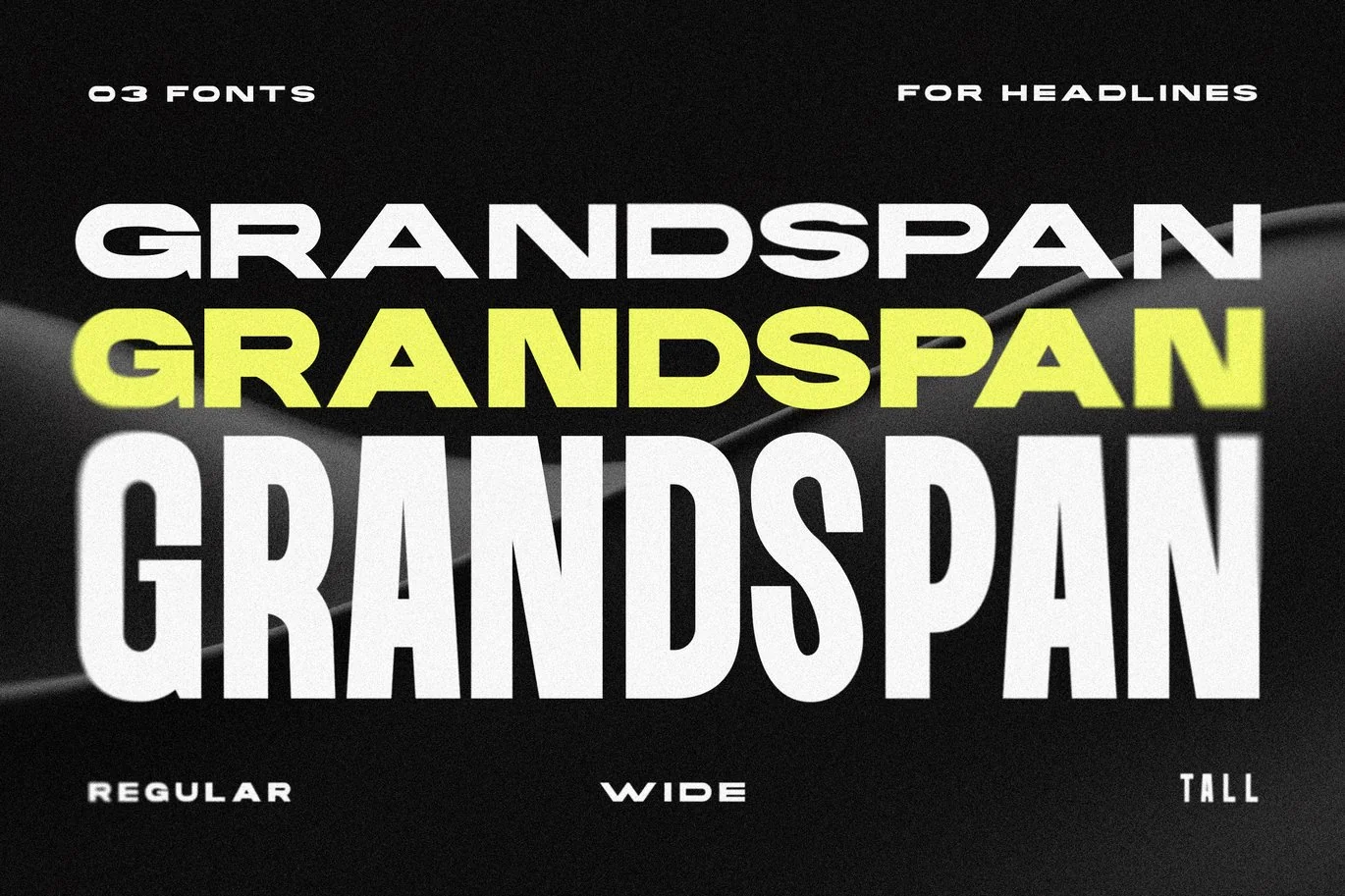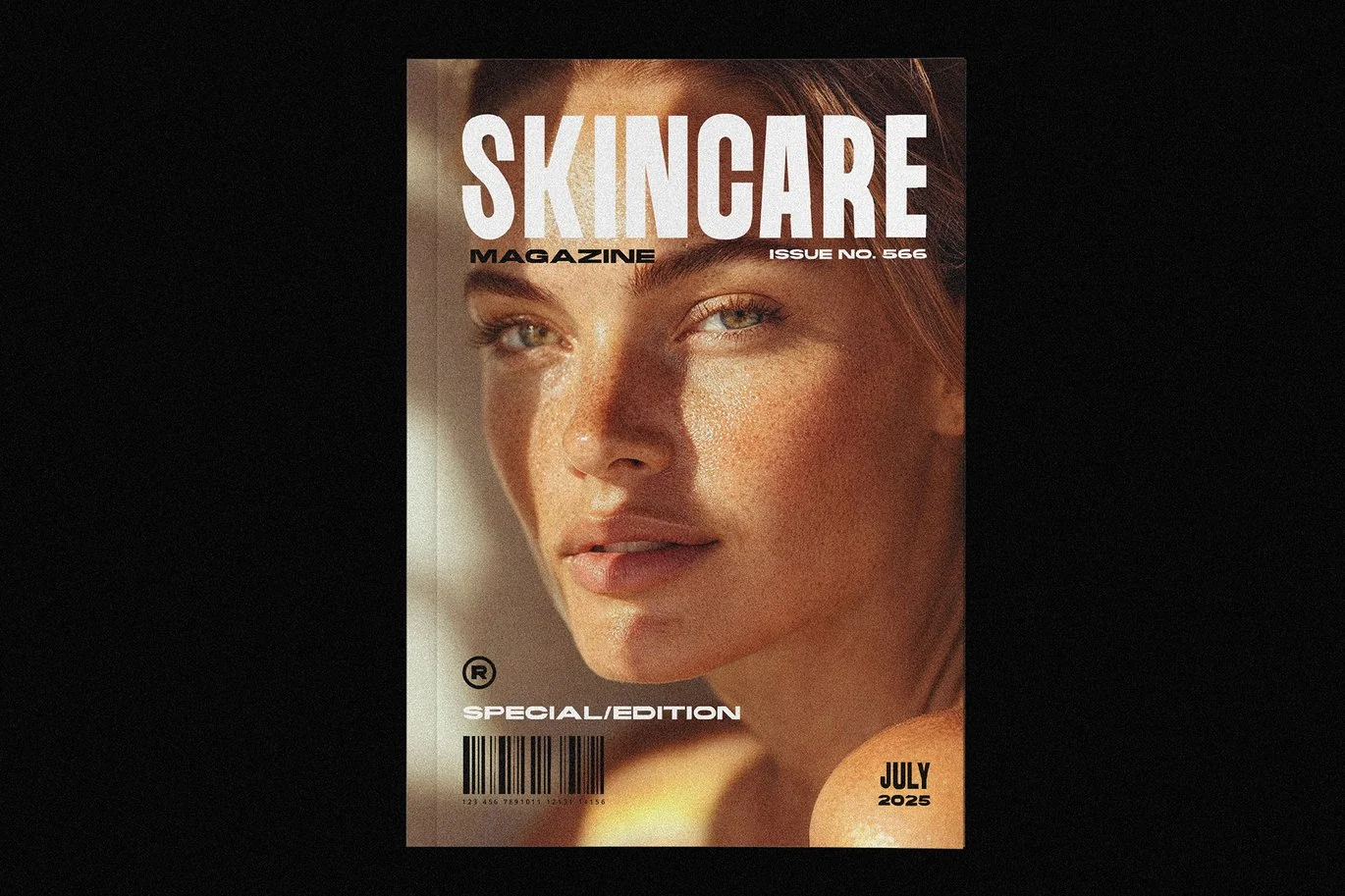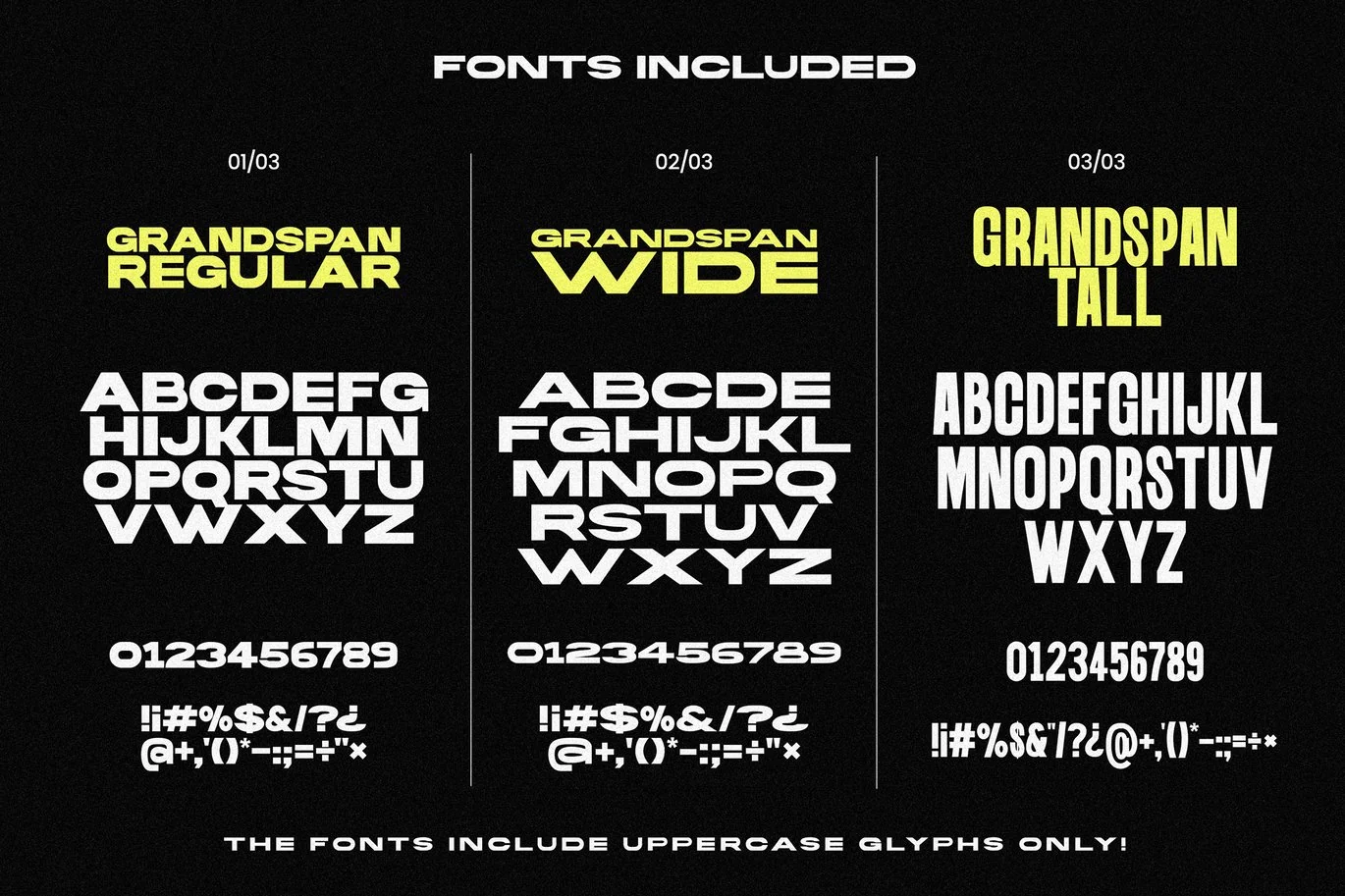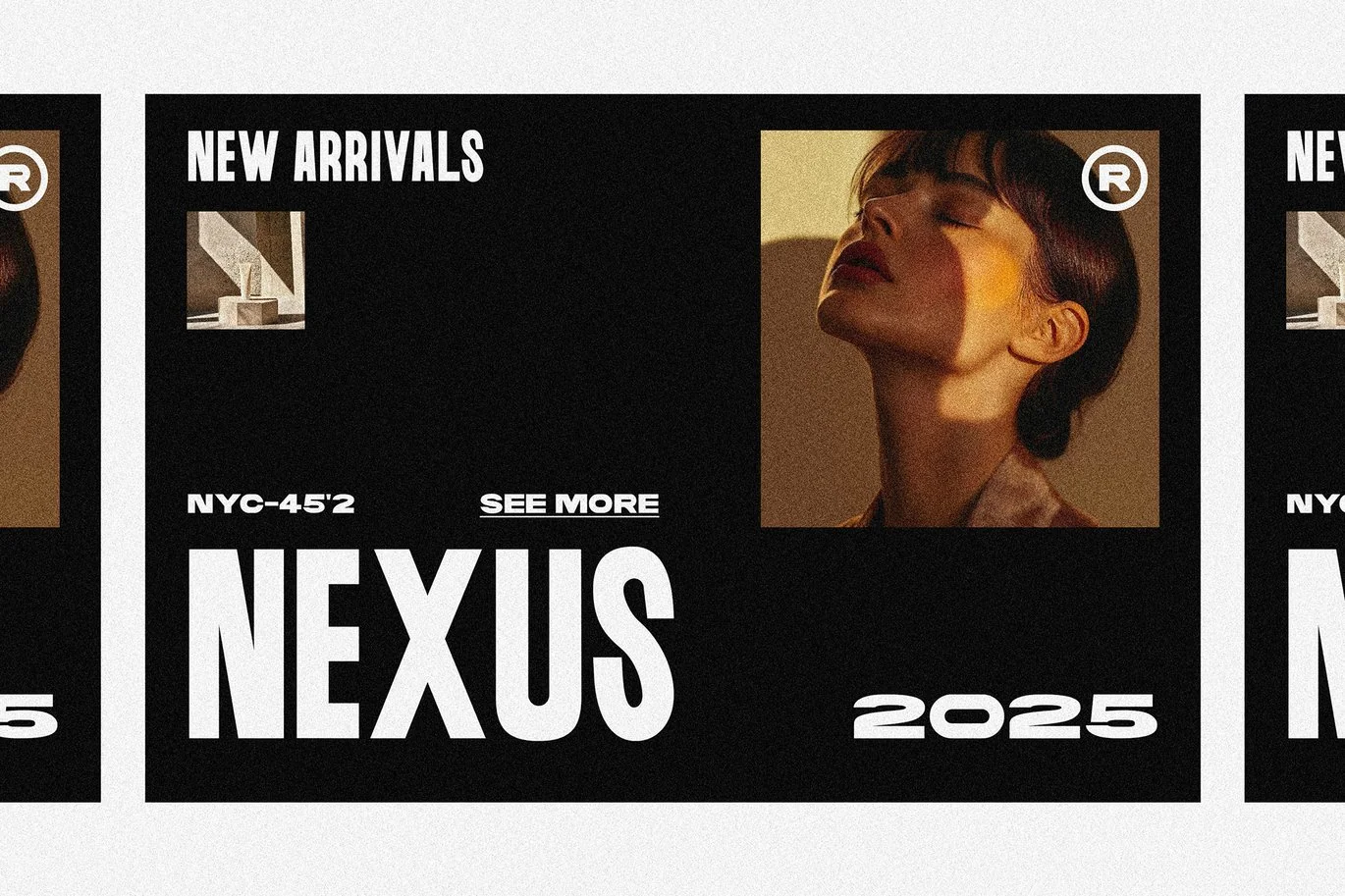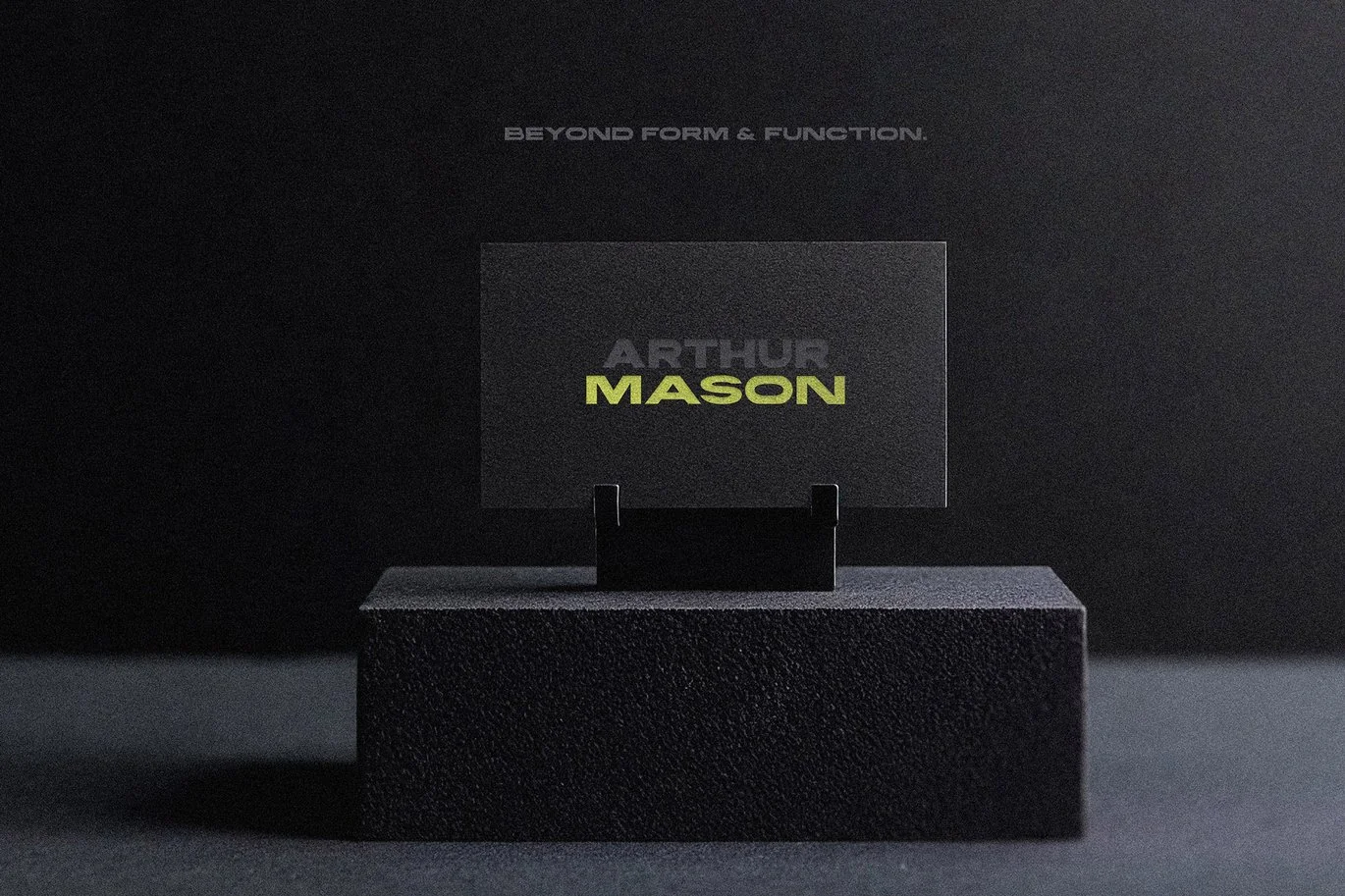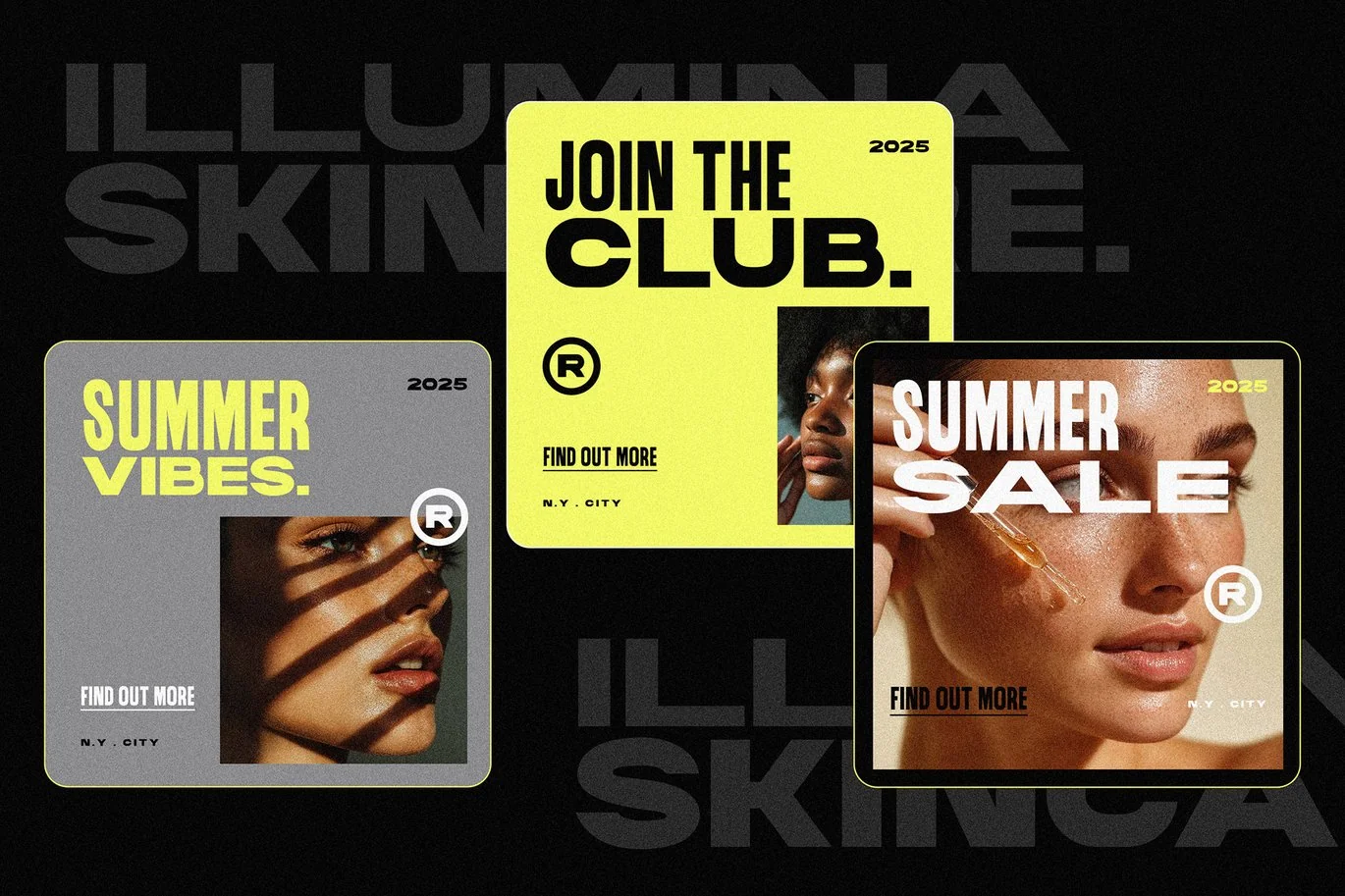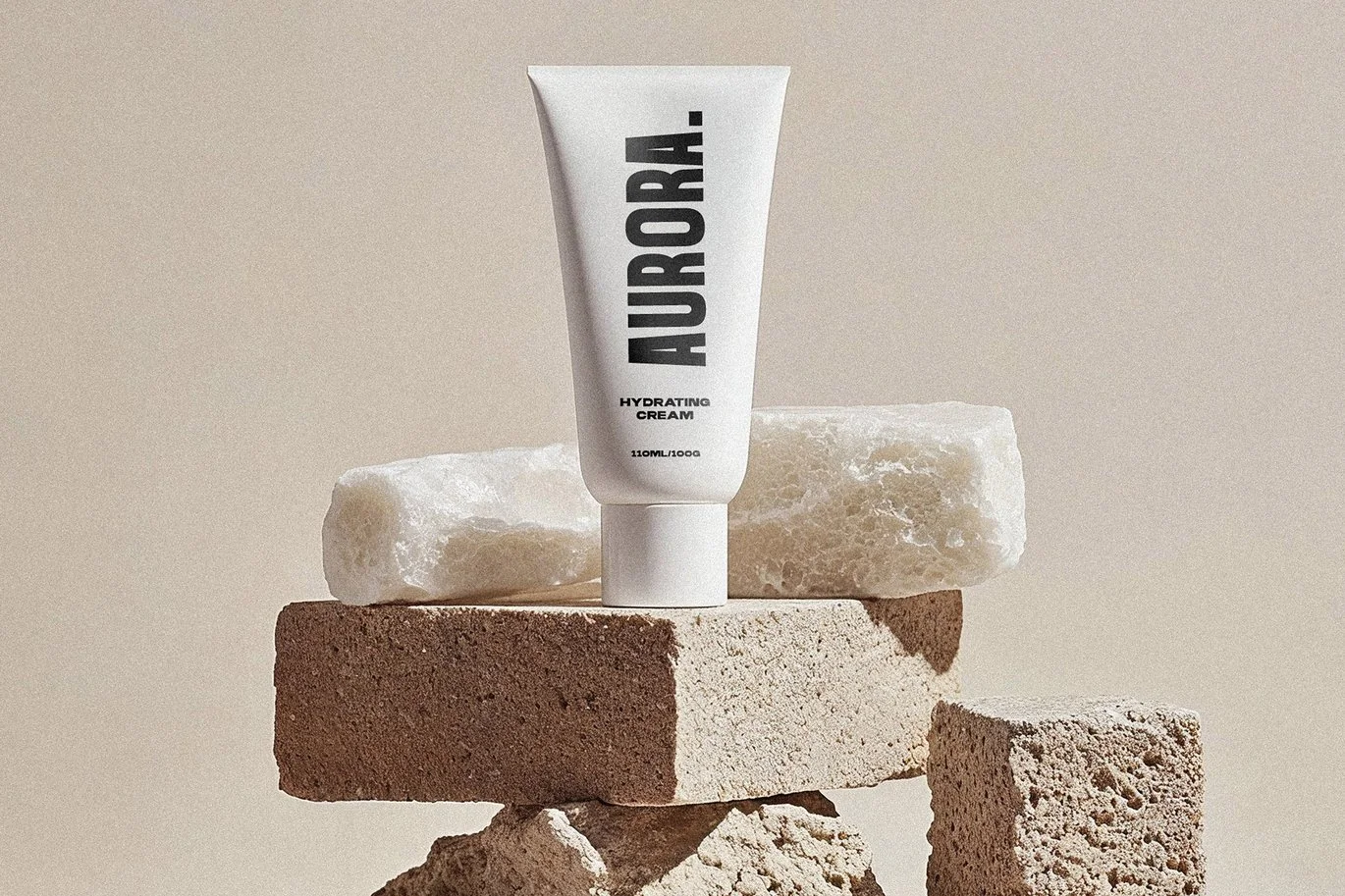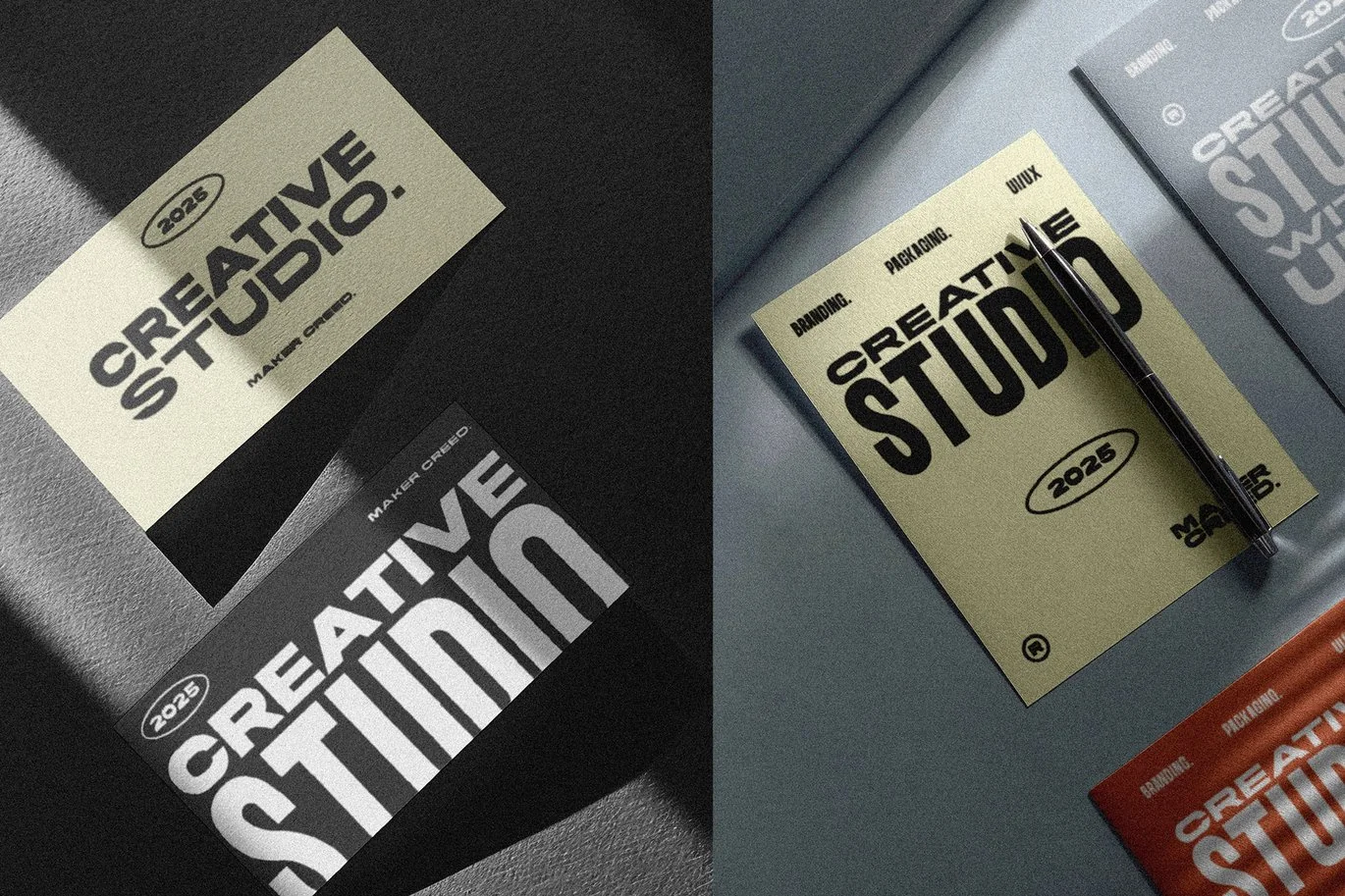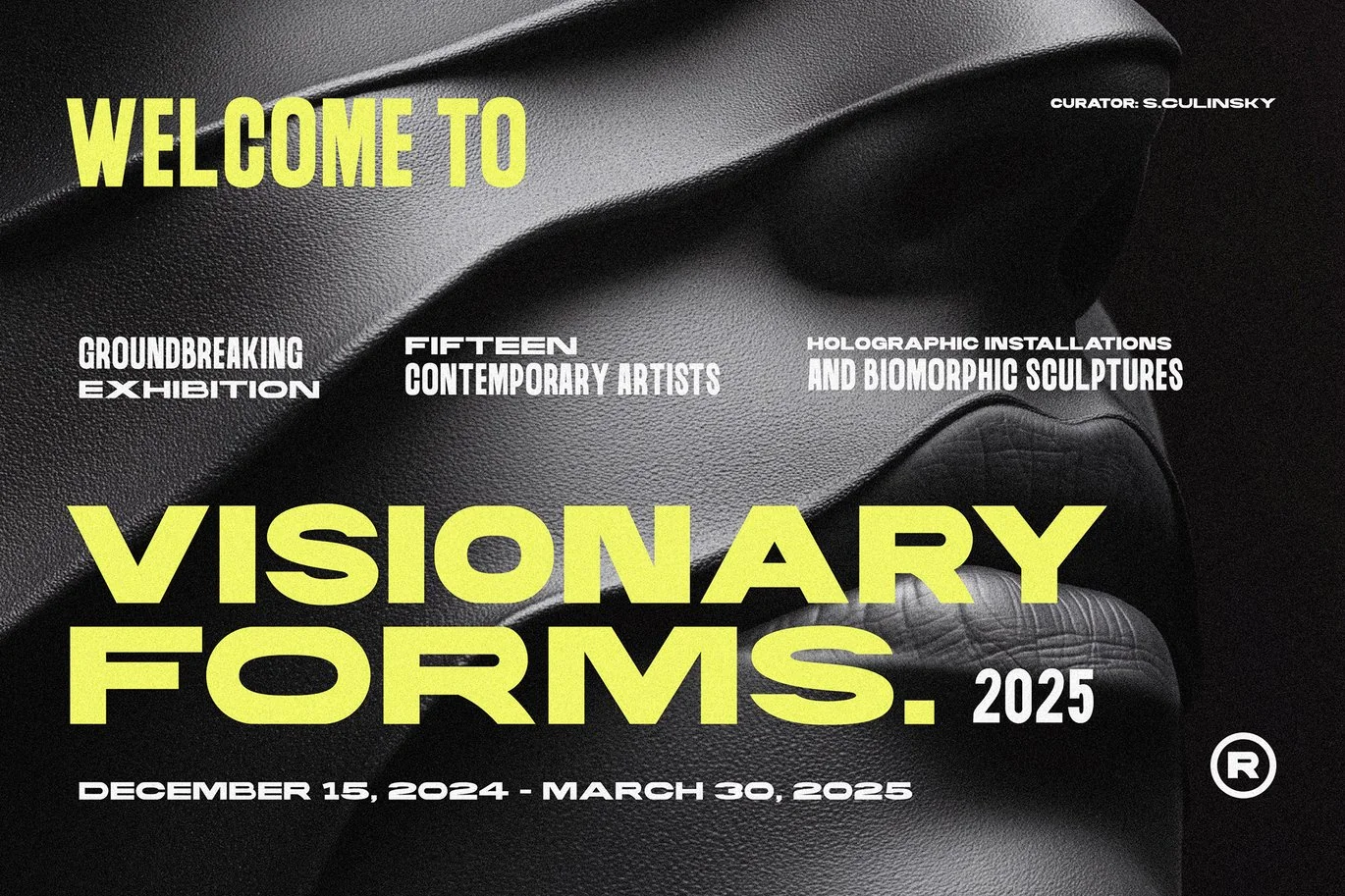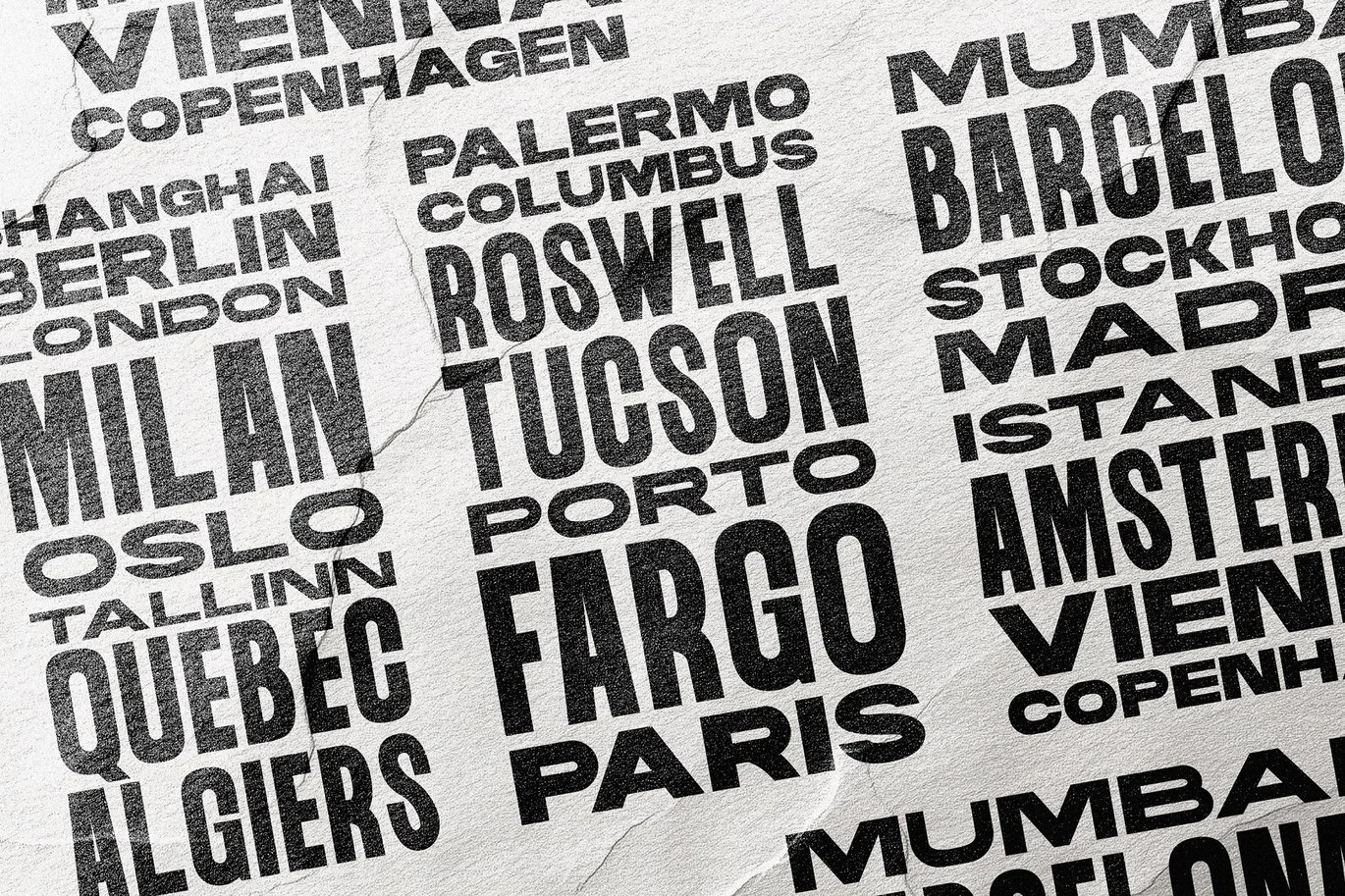
Grandspan – A Bold Font Family
Are you looking for a bold headline font? Well, you just found it! Introducing Grandspan!
Grandspan is a font family for bold titles and impactful typography. It consists of three fonts – Regular, Wide, and Tall.
Grandspan is perfect for:
- Brand identities
- Editorial design
- Social Media
- Websites
- Packaging